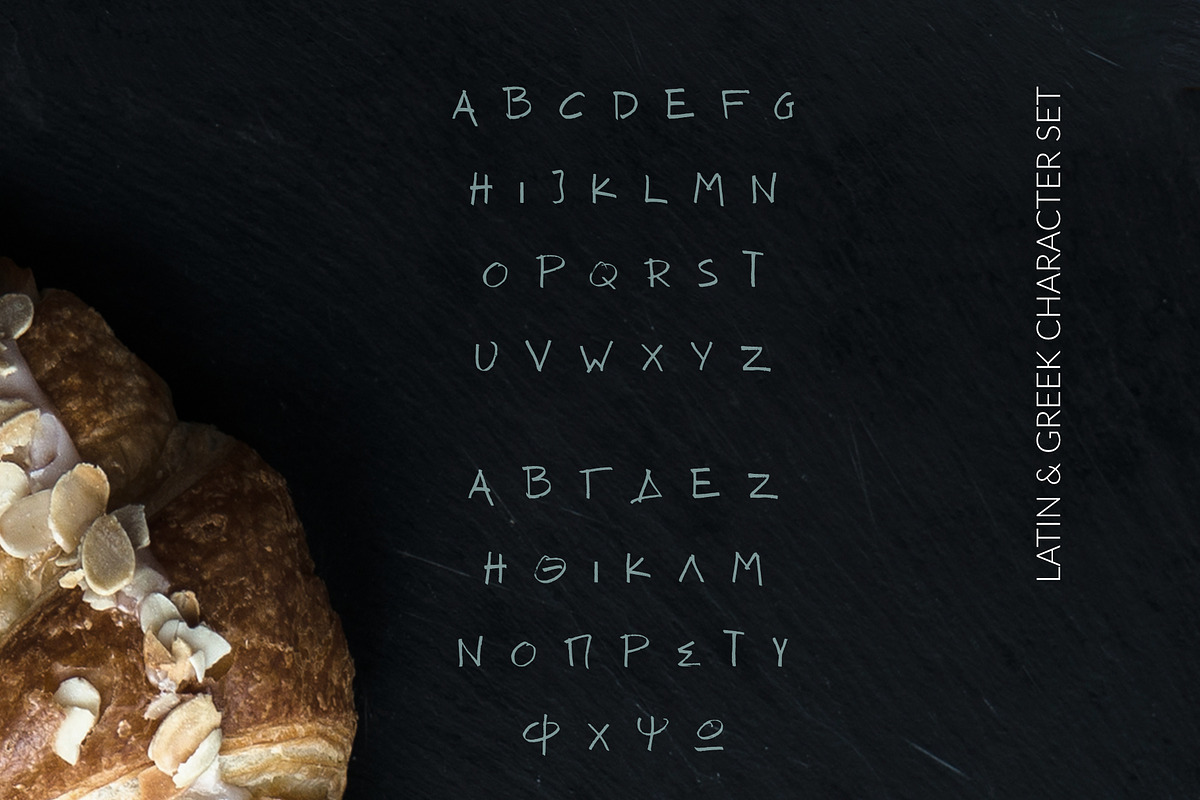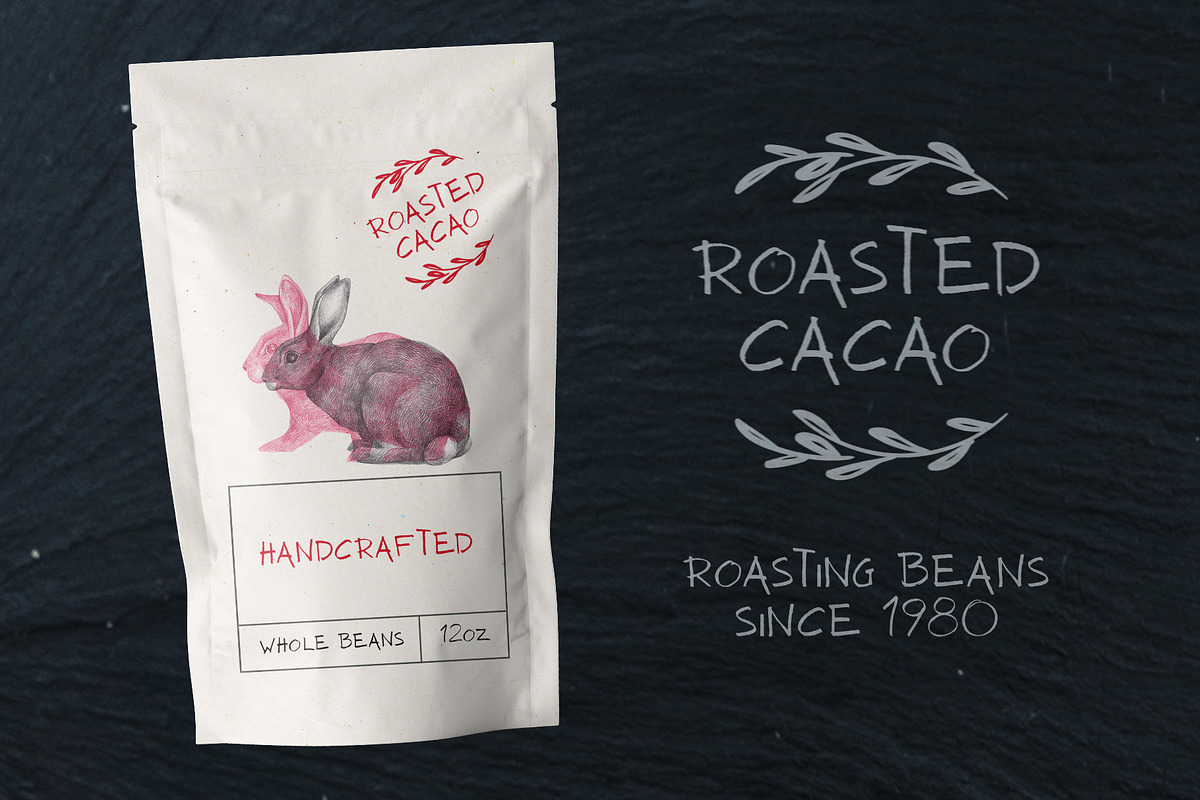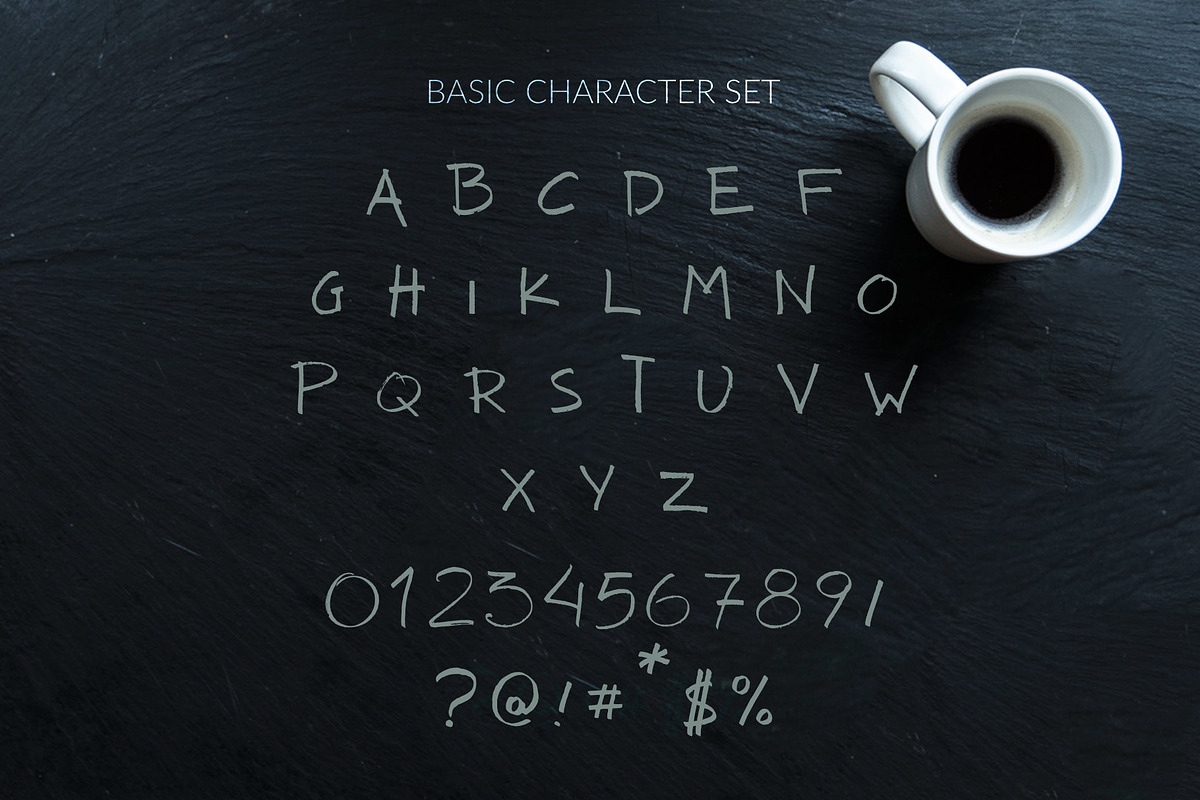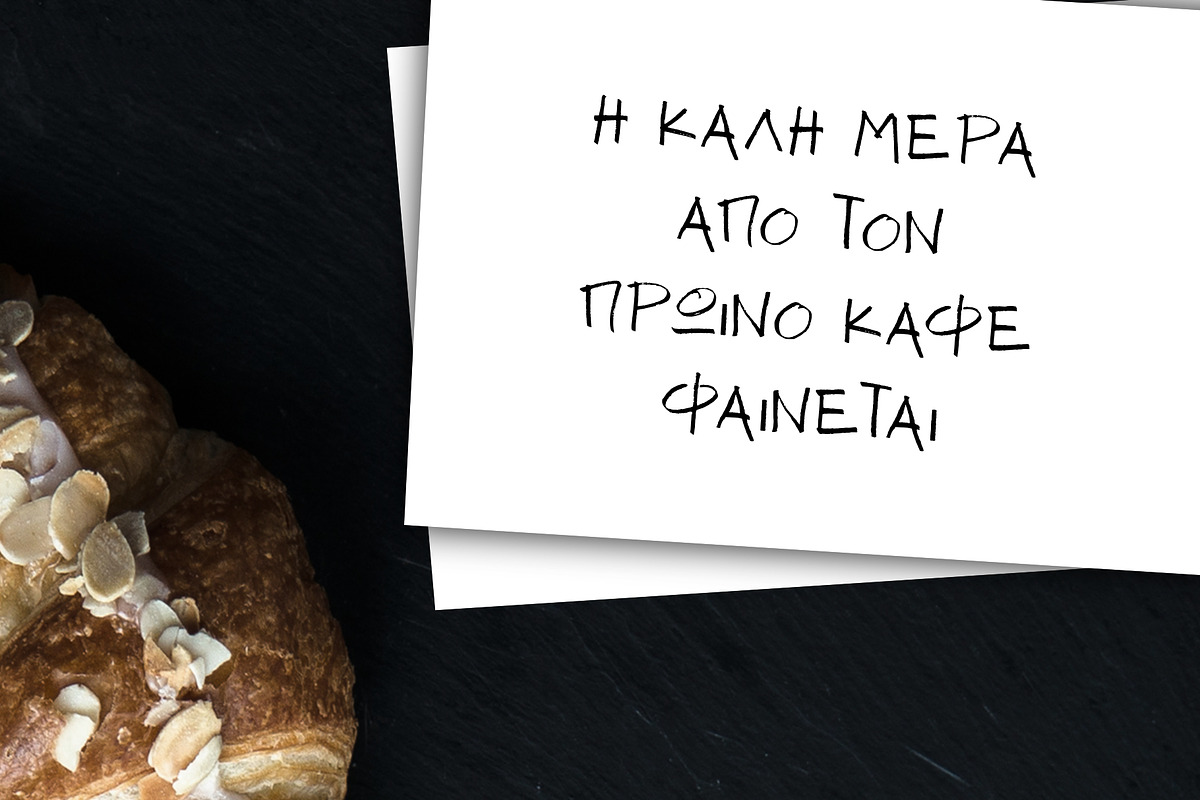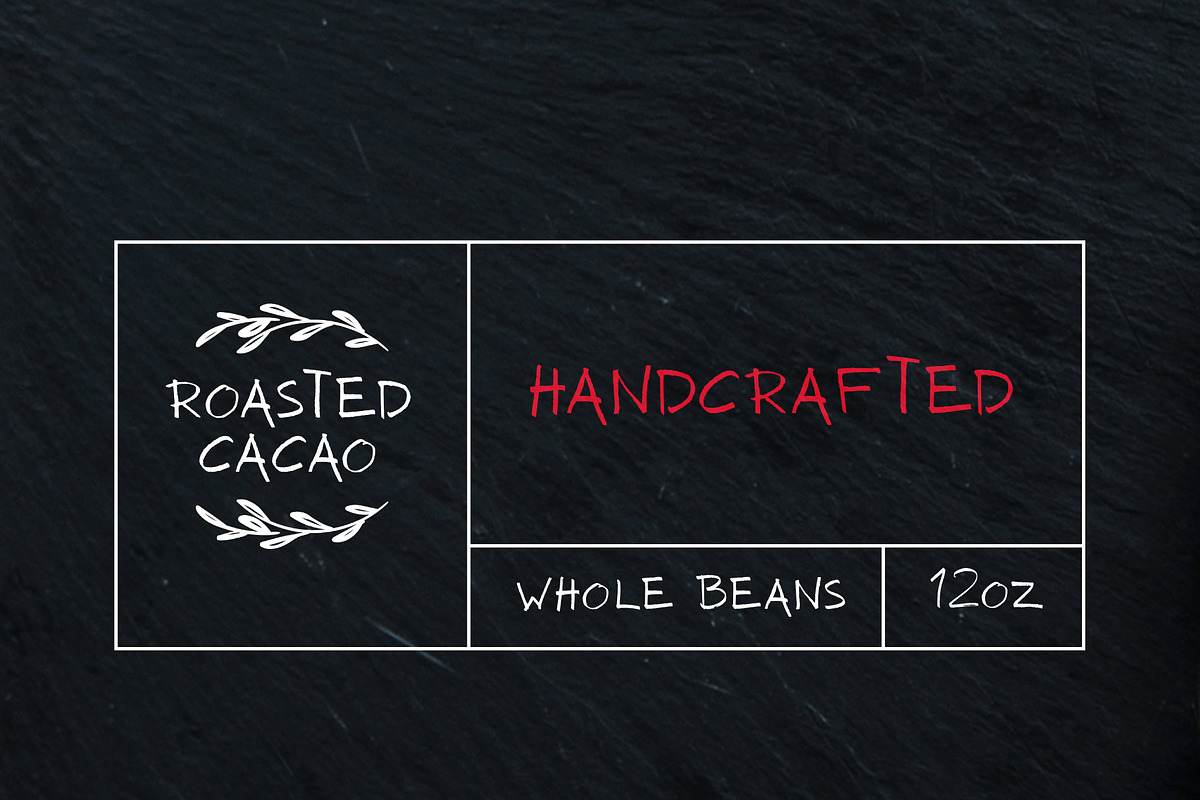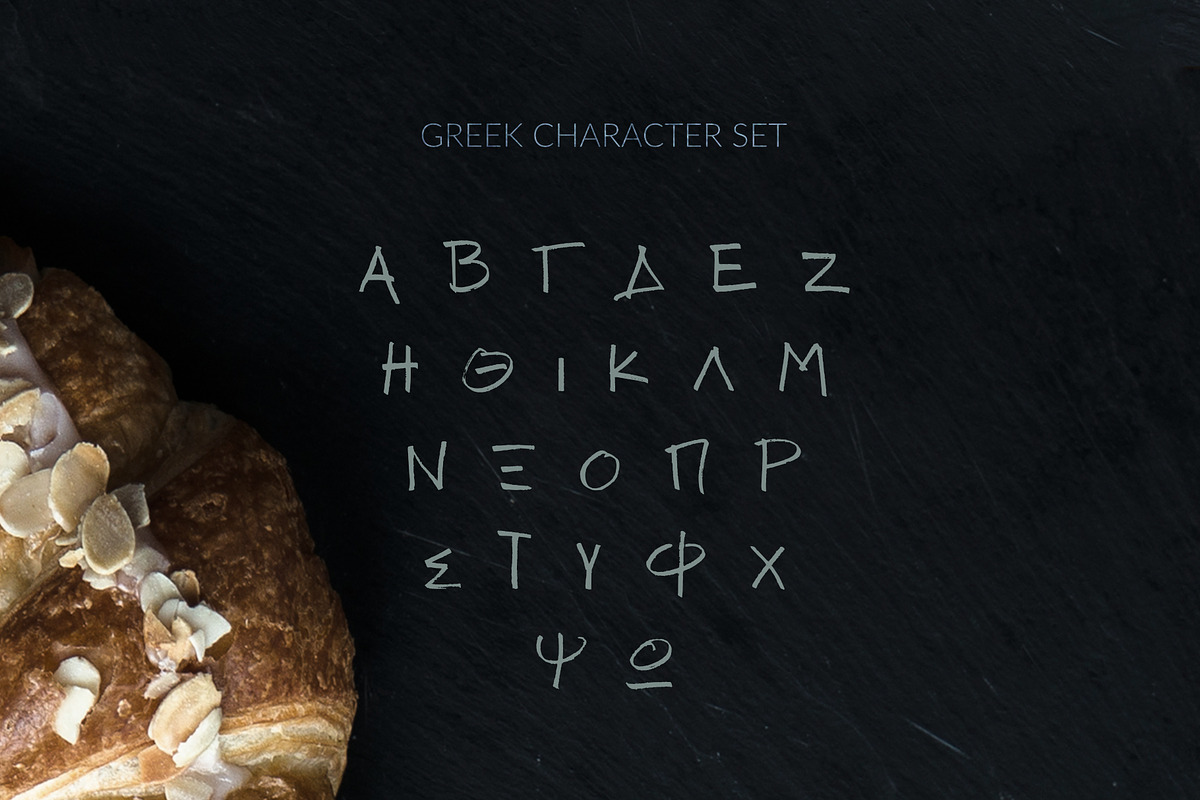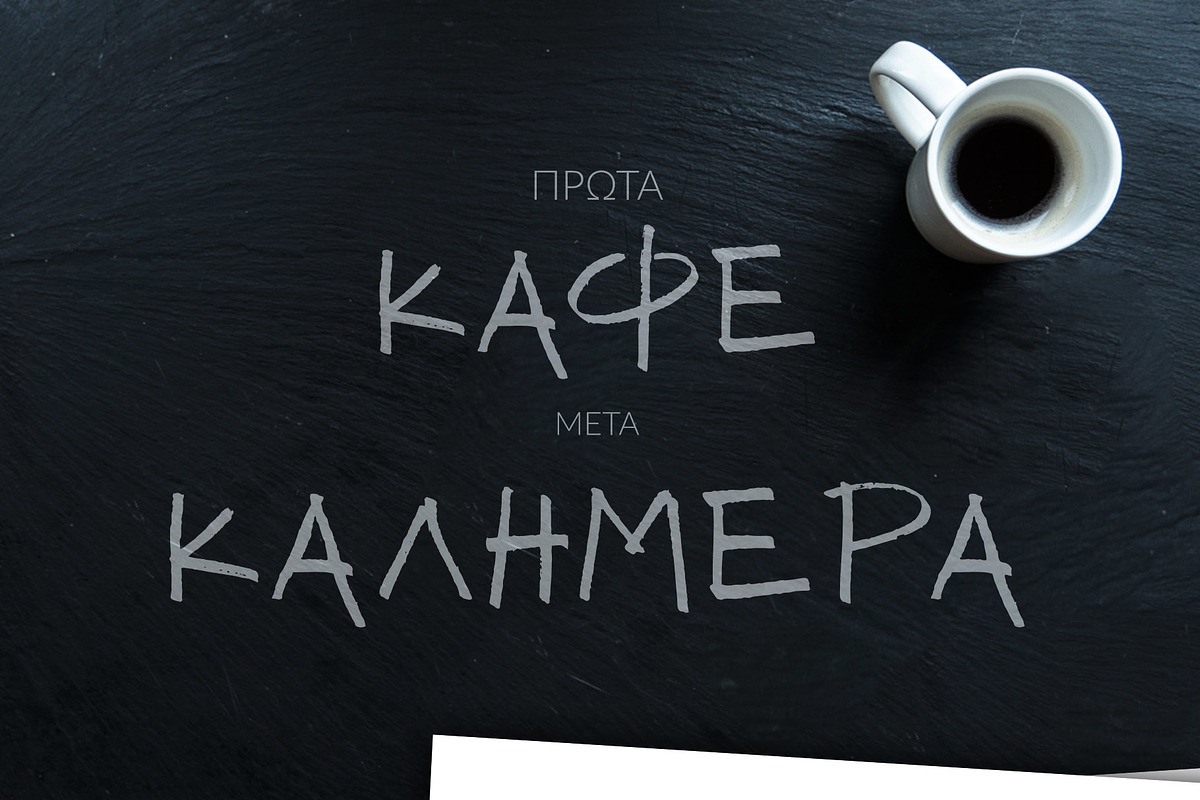
ANTIO! Prokopis | Greek Font Duo
ANTIO! Prokopis | Greek Font Duo by Greek fonts by nantia.co is a font selected for branding, posters, packaging, typography.
- In conclusion, this pactical font duo includes: Antio font Basic Latin uppercase character set Greek uppercase character set Numbers Prokopi
- Prokopis Duo Font it’s a multilingual lettering duo font with Greek (of course), Latin characters and diacritics.
- Prokopis Duo Greek Font is a Greek font and an Extended Latin Font and that makes it a multilingual font.
ANTIO! Prokopis | Greek Font Duo by Greek fonts by nantia.co fits naturally into Branding, posters, packaging, typography.